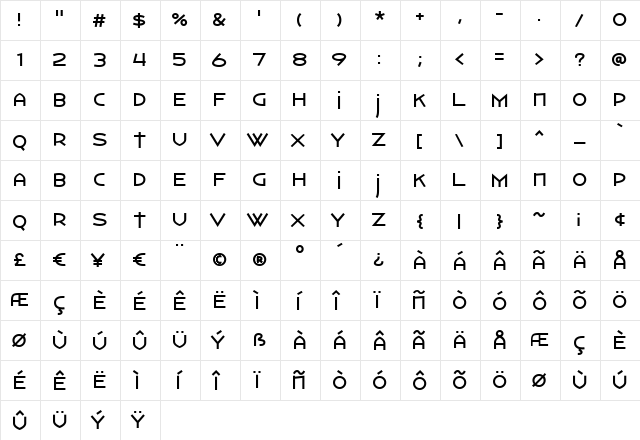
Watertown Bold Regular
| Foundry | Fonthead Design Inc. |
| Designer | Ethan Dunham |
Design Context for Watertown Bold Typeface
Watertown Bold offers clean, dependable letterforms without strong stylistic allegiance, making it a practical choice for designers who need flexibility. Its bold stroke weight gives it real presence on the page.